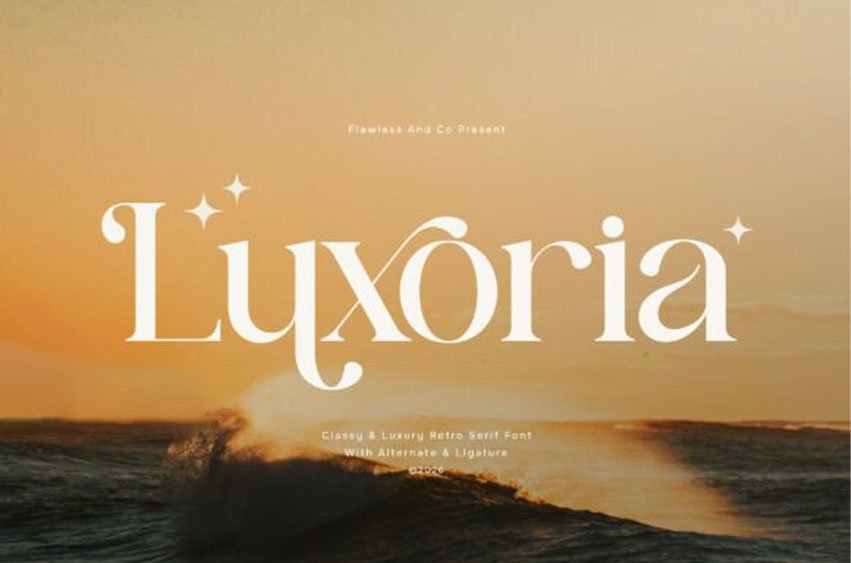
Luxoria Font
Luxoria Font is a classy and elegant retro serif font designed to convey a sense of luxury, refinement, and timeless beauty. Inspired by vintage typography with a modern luxurious touch, Luxoria features graceful serif details, smooth curves, and carefully balanced letterforms that create a sophisticated visual presence.
The font blends retro charm with a polished and upscale aesthetic, making it perfect for designs that aim to express elegance and exclusivity.